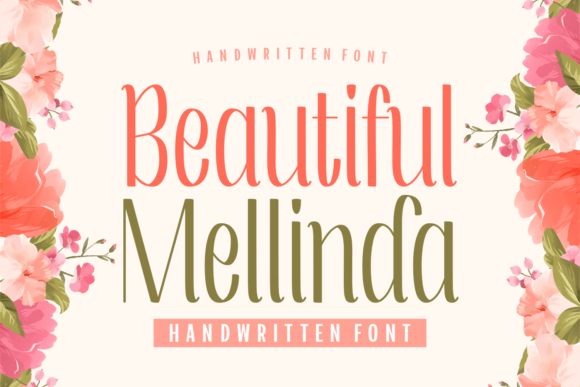
Unleash your creativity with Beautiful Mellinda Font, a captivating handwritten font family that takes you on a journey of elegance and sophistication. Designed with precision and flair by the esteemed Jasm (7NTypes), Beautiful Mellinda is the epitome of modern calligraphy, crafted to elevate your designs to new heights.
Indulge in the beauty of its meticulously crafted letters, each stroke a testament to Jasm's artistry. The font's neat and sleek appearance lends an air of sophistication to any project, whether you're designing a book cover, a wedding invitation, or your personal branding.
As a script font, Beautiful Mellinda exudes a touch of whimsy and charm, adding a personal touch to your creations. Its clean and legible design ensures that your message shines through, making it perfect for branding, logos, and marketing materials.
With Beautiful Mellinda, you'll discover endless possibilities to express yourself. Its versatility knows no bounds, allowing you to create unique and eye-catching designs that will leave a lasting impression. Let your imagination soar as you explore the multitude of ways to bring your vision to life with this remarkable font.
Embrace the elegance of Beautiful Mellinda and elevate your designs to new realms of creativity. Join countless artists, designers, and entrepreneurs who have discovered the transformative power of this font. Make your mark and leave an indelible impression with Beautiful Mellinda, the font that speaks volumes without uttering a single word.